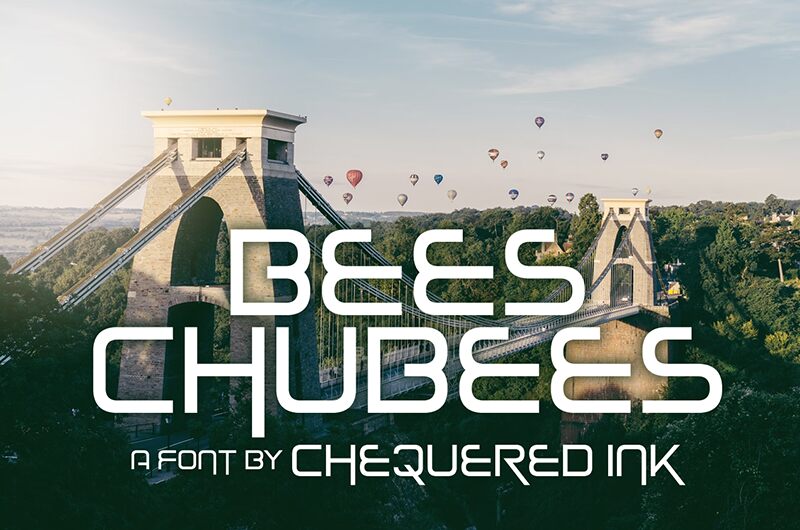
Bees Chubees
Bees Chubees font by Chequered Ink is an expanded futuristic display font providing interesting ideas for creative people. Taking the visual identity to the next level with unique features, it consists of clean lines and other geometric elements. Finding inspiration in modern and interesting things, Bees Chubees impresses with its symmetrical futurism and equally minimalistic aesthetics.
Create print projects like kids book covers, poster designs, fonts tailored for age groups, packaging layouts for toys or event invitations most welcome! Sometimes you need a special font on your website (another perfect use case). All fairy tales have to start somewhere precisely because creativity knows no bounds!